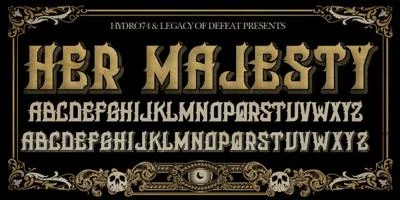
H74 Her Majesty Font
H74 Her Majesty Font is perfect for royal branding, luxury packaging, elegant invitations, regal signage, aristocratic communications, premium corporate materials, formal ceremonies, and majestic display typography.
What makes H74 Her Majesty Font exciting is its royal majestic character that embodies regal elegance and aristocratic sophistication through refined letterforms and royal appeal. This distinguished typeface features regal construction, aristocratic details, and majestic personality that captures the essence of royal heritage and imperial grandeur, making it ideal for projects seeking to communicate luxury, nobility, and regal authority with authentic royal appeal and aristocratic sophistication.
The H74 Her Majesty Font family includes Light, Regular, and Bold weights, each maintaining the characteristic royal elegance and majestic appeal that define this distinctive typeface's aristocratic personality and regal sophistication.
H74 Her Majesty Font provides access to a typeface that perfectly captures the essence of royal heritage and aristocratic elegance. This majestic font brings authentic royal aesthetics to contemporary projects, making it essential for luxury brands, high-end hospitality, and prestigious organizations targeting audiences who appreciate royal tradition and aristocratic refinement. The font's regal construction and aristocratic details ensure immediate recognition of prestige and nobility while its distinctive character creates elevated connections among individuals seeking luxury experiences and royal sophistication. Whether designing luxury product packaging, royal event materials, or aristocratic brand communications, this font delivers the royal authenticity and majestic sophistication that prestigious audiences expect. Its royal foundation and aristocratic symbolism make it indispensable for projects celebrating royal heritage, aristocratic culture, and the timeless appeal of regal design, ensuring communications resonate with audiences who value the royal dignity, aristocratic grace, and majestic elegance that define authentic royal experiences and aristocratic lifestyle across diverse luxury and prestigious applications.